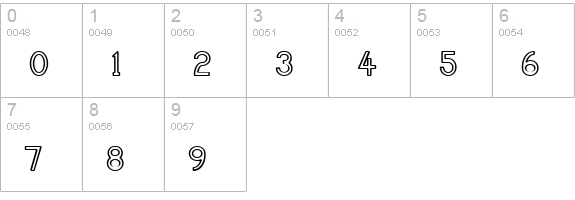
FortuneCity Outline Font Details
FortuneCity Outline font is a modern and stylish typeface that exudes sophistication and elegance. With its clean lines and striking design, this font is perfect for adding a touch of finesse to any project. The outline style gives it a unique and eye-catching appearance that is sure to captivate your audience. What's even better is that FortuneCity Outline font is available for free download at FontsMarket.com. This means you can easily access this stunning font without any cost, making it a valuable addition to your font collection. Whether you're working on a branding project, design work, or simply want to elevate your creative projects, FortuneCity Outline font is a versatile choice that will help you stand out from the crowd. Download it today and start creating beautiful designs effortlessly.